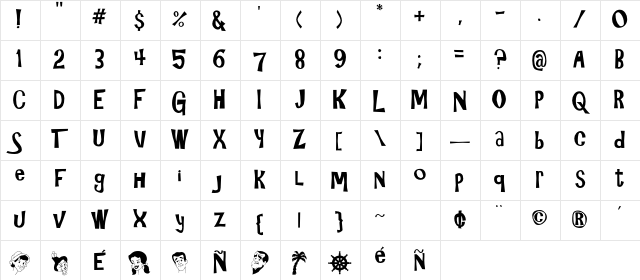
Gilligan Regular Free Font
Gilligan Regular
Design Context for Gilligan
Gilligan is a composed and adaptable typeface that performs quietly and consistently across a wide range of design contexts.
Pro Tip: Use Gilligan in both headline and body roles to test its range before committing to a single application.